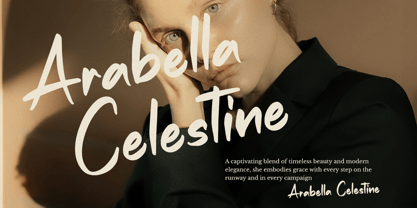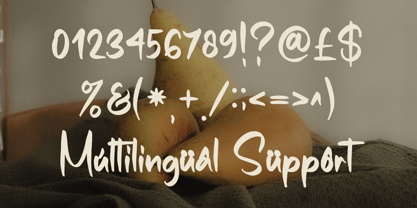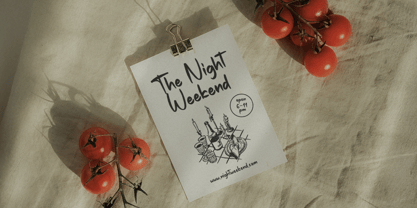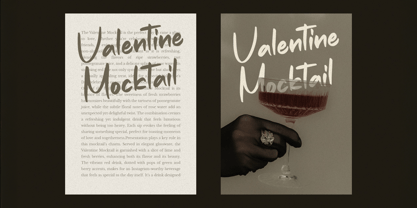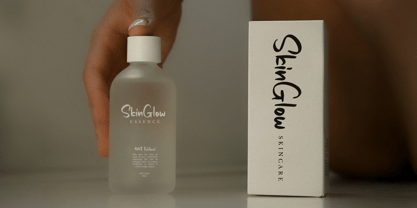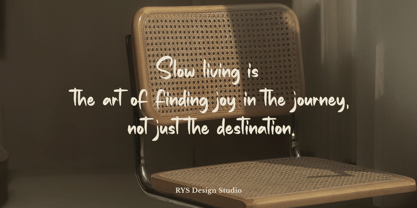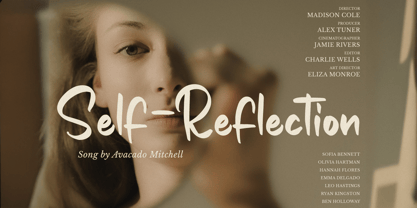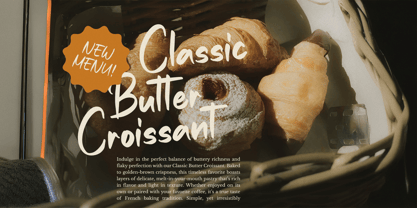
RYS Homie Dreamy
by RYS Design Studio
The RYS Homie Dreamy Font Family was designed by Witoko Aji Laksono and published by RYS Design Studio. RYS Homie Dreamy contains 1 styles. More about this family
Introducing RYS Homie Dreamy a handwritten font
Homie Dreamy is a charming handwritten font that brings a playful, authentic touch to your designs. This versatile font is perfect for a wide range of creative projects, from logos and branding to wedding invitations, merchandise, product packaging, and signatures. It’s also perfect for Valentine’s themes, menu designs, inspirational quotes, and skincare packaging. With its warm, friendly style, it’s an ideal choice for children’s books or any design that needs a personal, heartfelt feel.
Let Homie Dreamy add a bit of joy, romance, and personality to your next project!
Designers: Witoko Aji Laksono
Foundry: RYS Design Studio